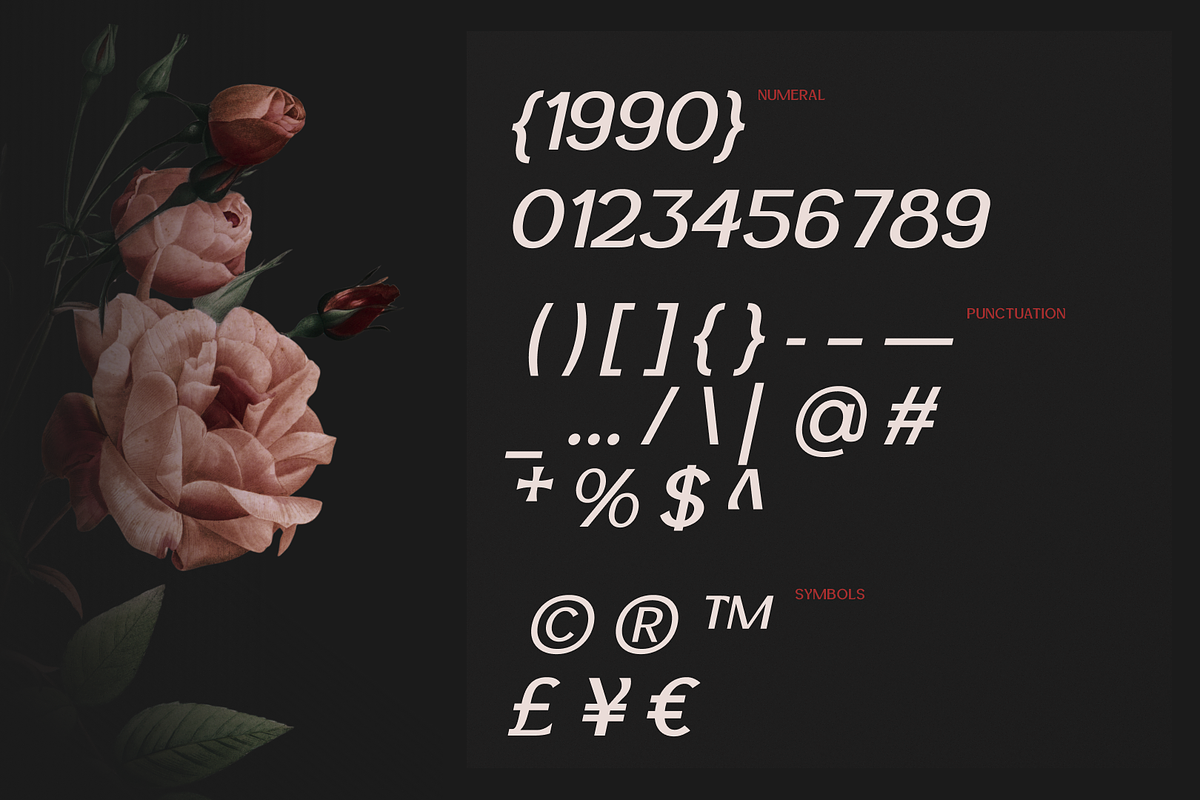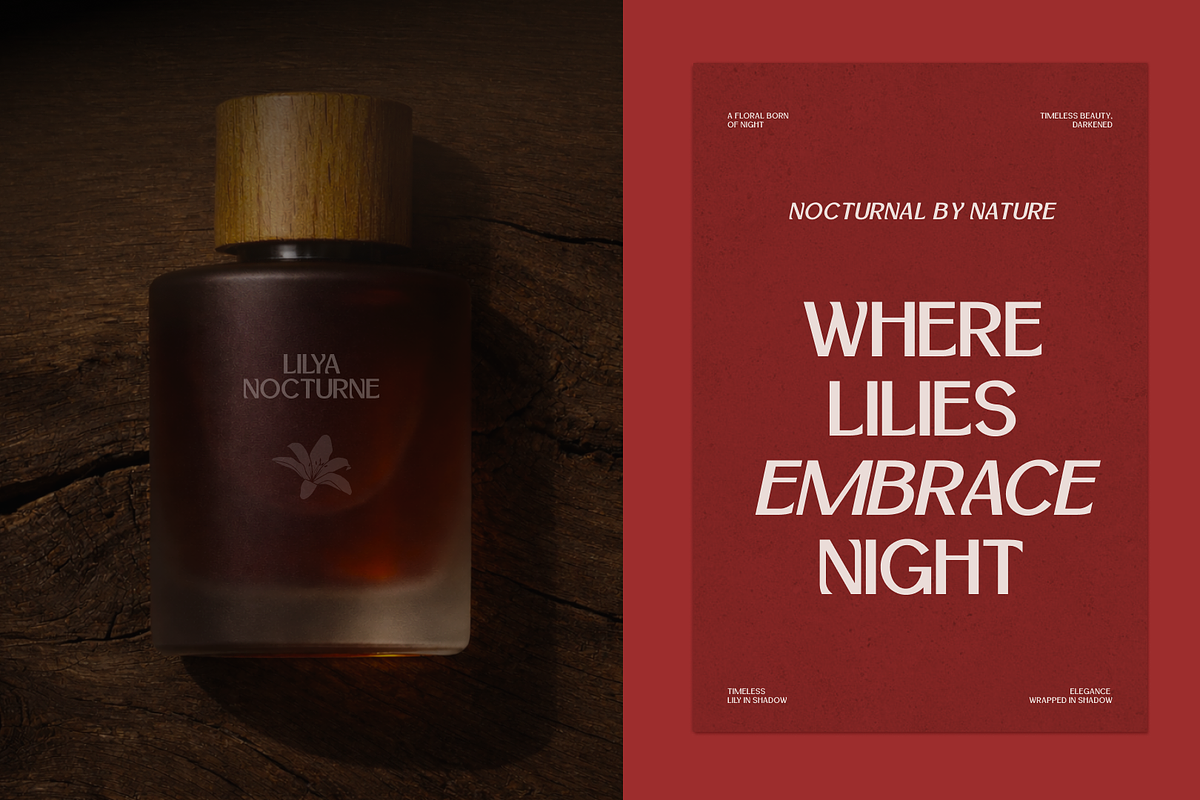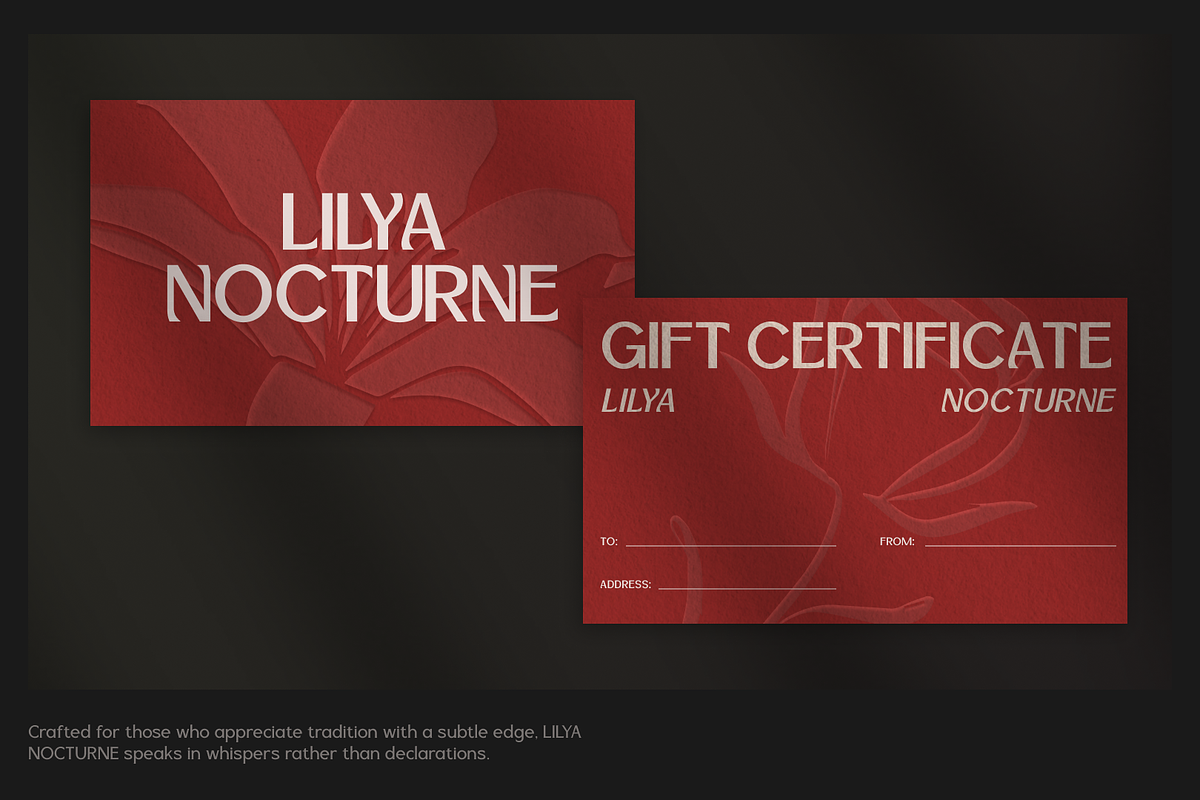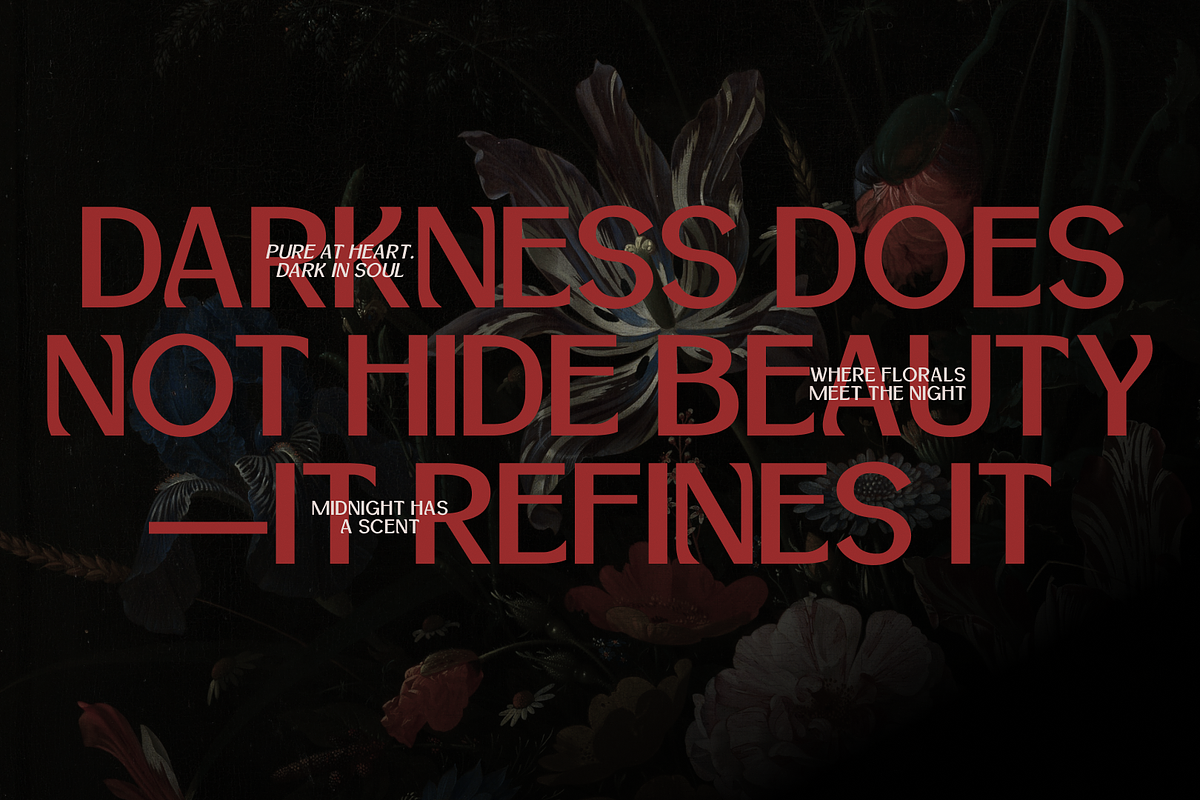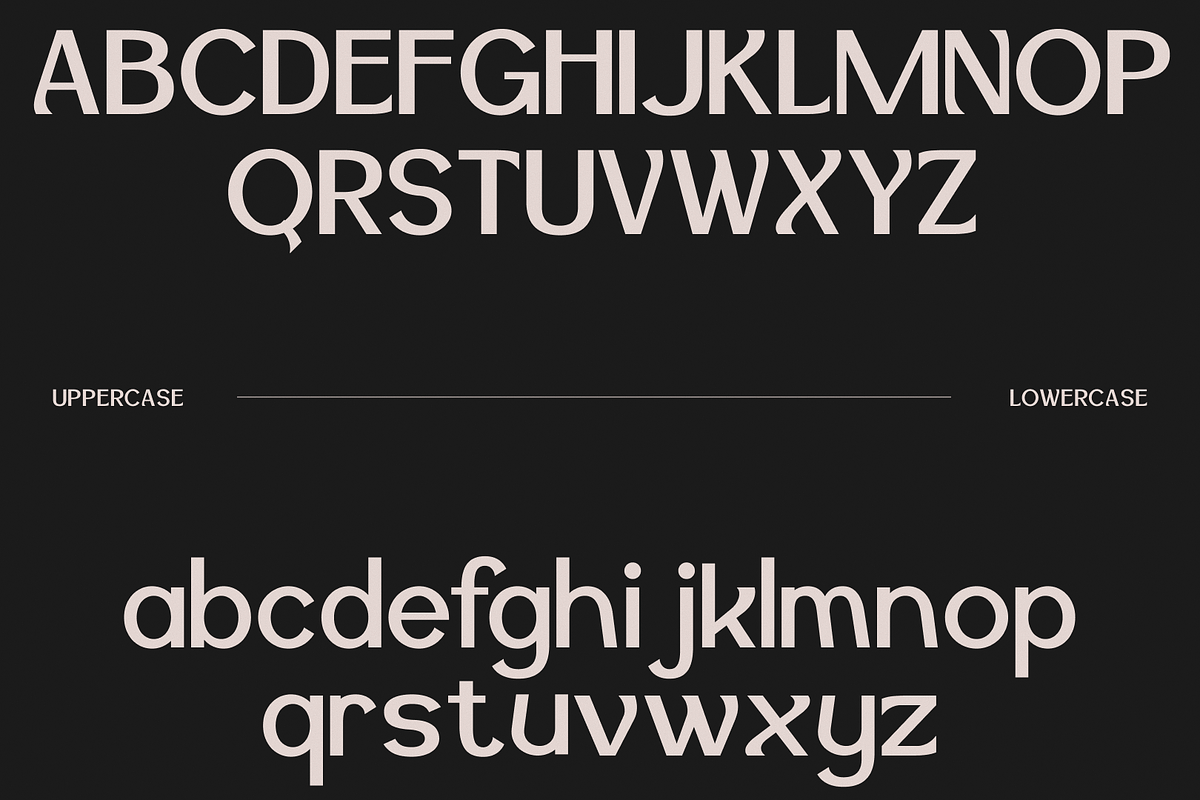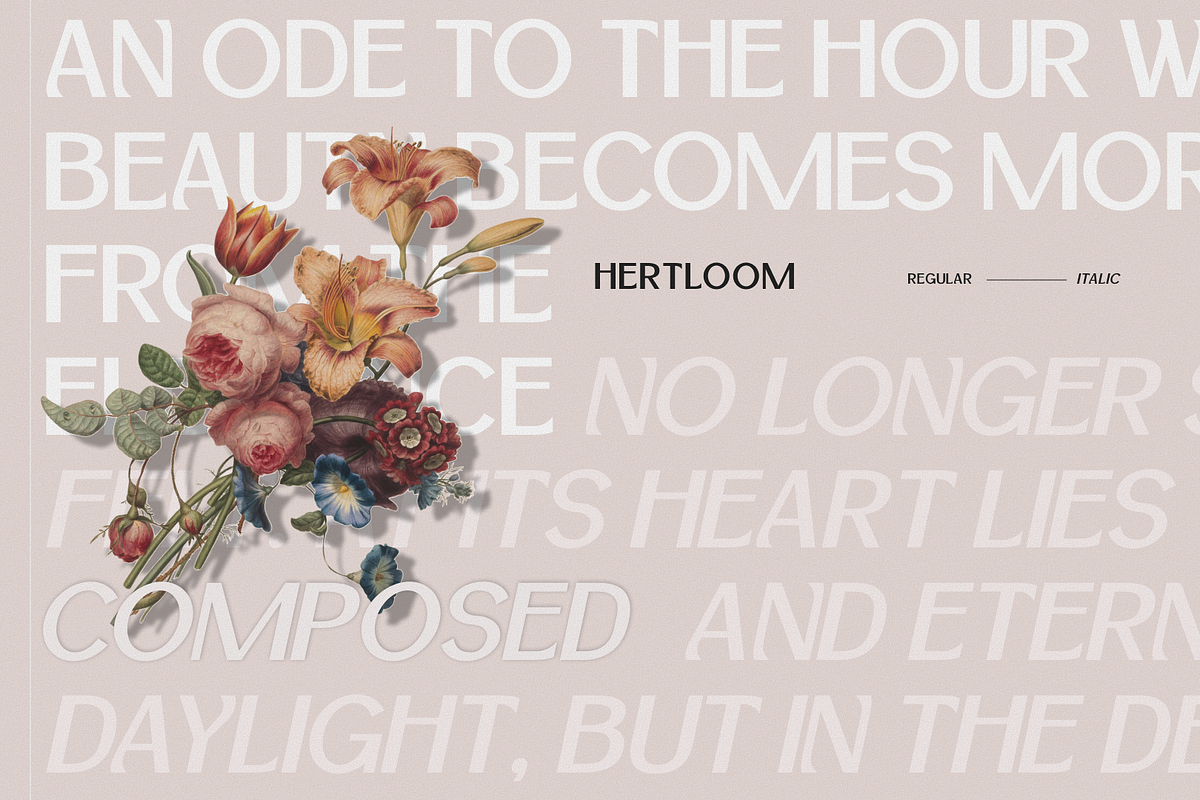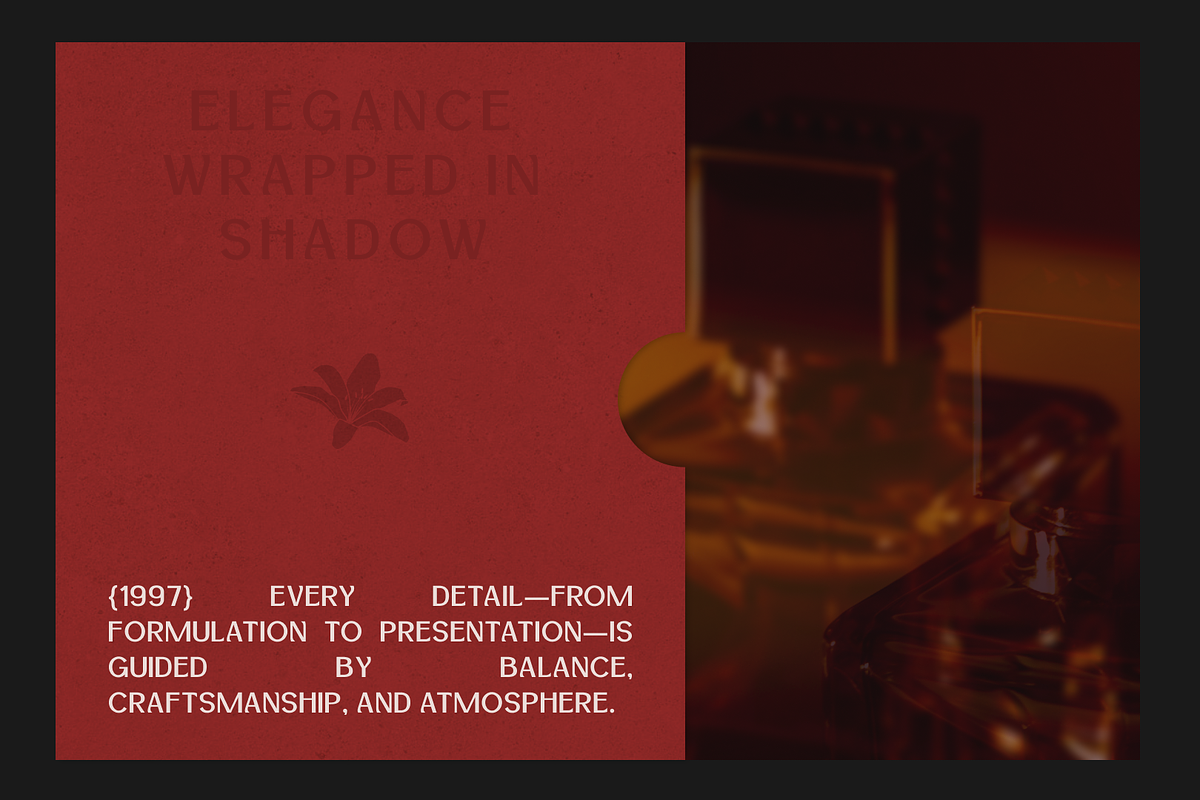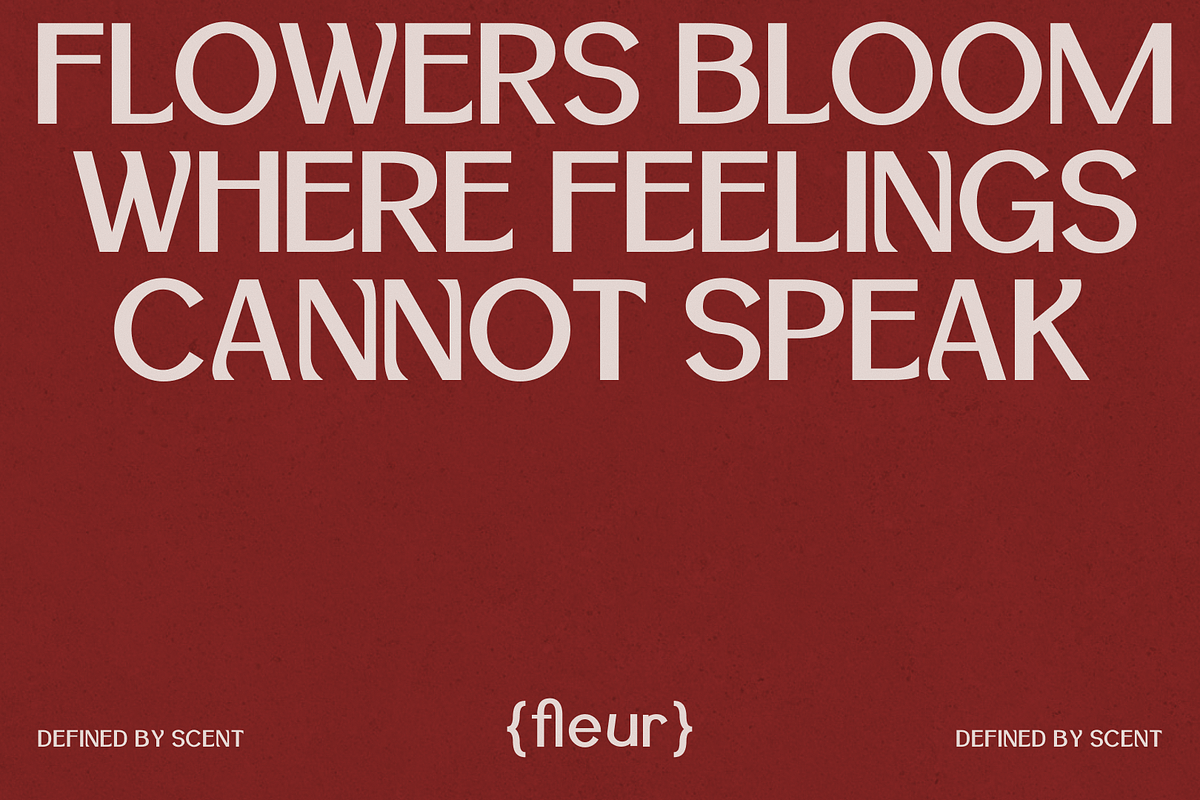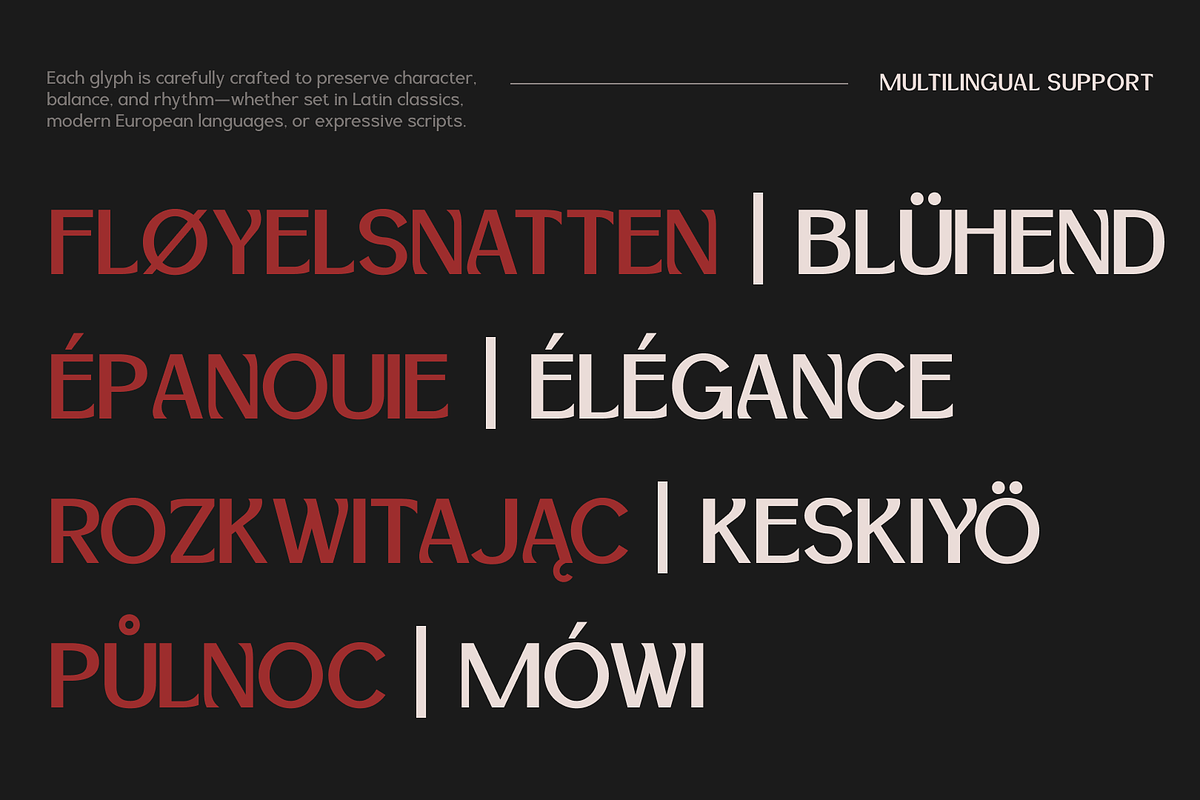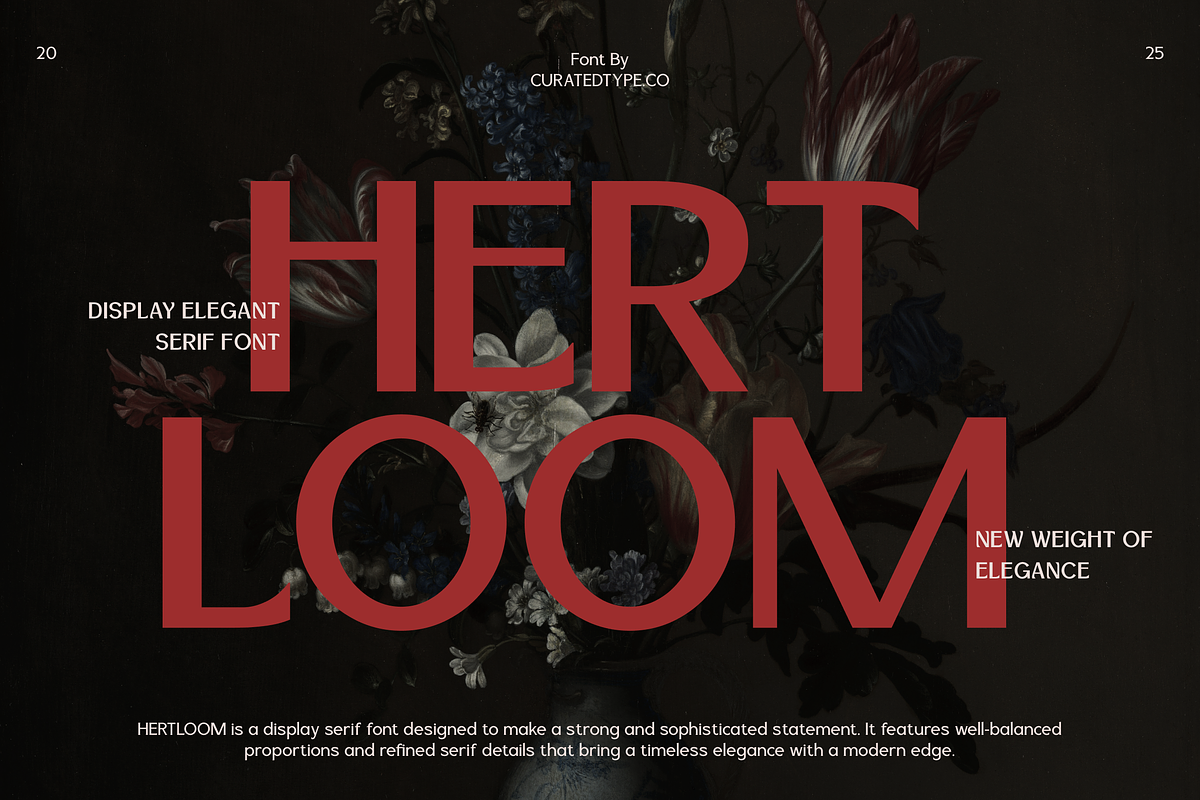
Hertloom Typeface
Introduce timeless elegance to your design toolkit with Hertloom, a display typeface that feels both ancient and refreshingly modern. This high-contrast design captures the soulful essence of hand-crafted type, blending the structural discipline of stone-carved letters with a fluid, organic rhythm. Hertloom’s unique character lies in its smooth, swelling curves and subtly flared terminals, giving it a distinctive voice that is rich, warm, and sophisticated.
Hertloom is more than a font; it is a centerpiece for prestigious branding. Its delicate contrast and strong presence make it ideal for luxury goods, premium food and beverage packaging, and high-end editorial headings where a touch of artisanal elegance is paramount. Use Hertloom to craft a visual identity that speaks of heritage and quality, delivering a bespoke, memorable look for projects ranging from sophisticated invitations to boutique branding.
- 2 Styles Font : Regular, Italic
- Standard letter A-Z and a-z
- Numeral, Symbol, and Punctuations
- OpenType Feature
- Over 700 glyphs